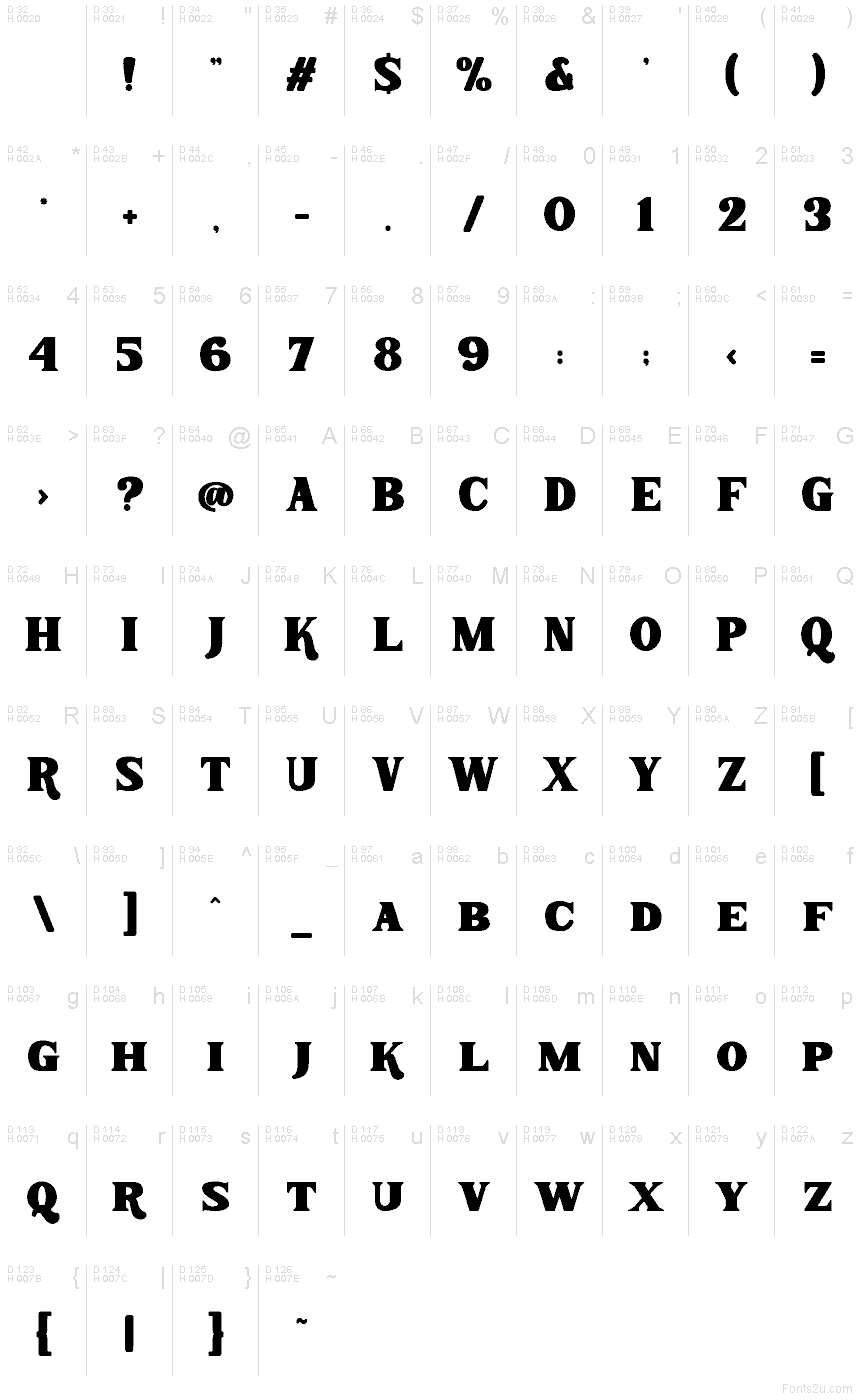
Classic Stroke font by PutraCetol Studio is a free retro display typeface that thrives in big, bold moments. Its chunky, chiseled letterforms and muscular wedge serifs feel like vintage woodtype pulled fresh from an inky press-thick, confident, and slightly gritty. The spacing is tight enough to lock up strong headlines, yet open enough to breathe at larger sizes, giving titles that satisfying poster punch.
Using Classic Stroke, you’ll nail logos, beer labels, BBQ menus, event posters, merch, and signage where you want heft and heritage. This free font brings a sturdy rhythm that reads fast from a distance and holds detail up close. Keep copy minimal and go large; pair with a simple grotesk or geometric sans for supporting text to let the retro heft carry the spotlight.